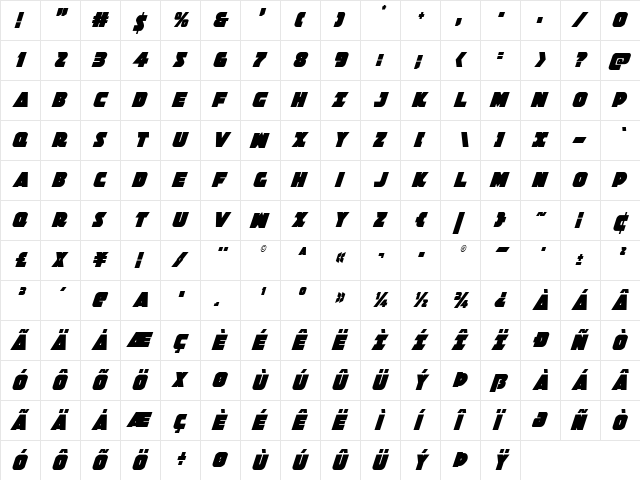
Jedi Special Forces Condensed Italic Font Preview
Design Context for Jedi Special Forces Condensed Italic Typeface
Jedi Special Forces Condensed Italic brings high-energy athletic personality to the page — its confident, muscular forms are built for impact. The dynamic lean of this cut emphasises speed and emphasis in any layout. The condensed width makes it efficient for tight spaces without sacrificing legibility.
Built for sports team identities, athletic apparel, event posters, and high-energy promotional material.
Pro Tip: Jedi Special Forces Condensed Italic thrives on contrast — try it large, bold, and tight against a clean background for maximum visual impact.